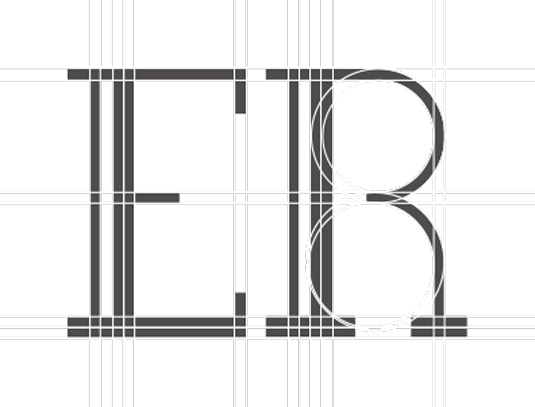
Font of the day: Bobber
Bobber by Lucas Almeida and Dmitry Goloub
Looking for a unique typeface, designers Lucas Almeida and Dmitry Goloub decided to create their own. Inspired by bobber motorcyles, the duo developed this slab serif, which is free to use for both personal and commercial projects.
With a cool, vintage design, this grid-based font can be downloaded for free over on Behance.